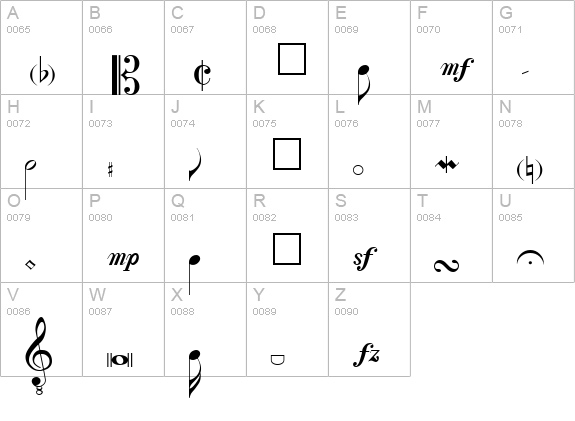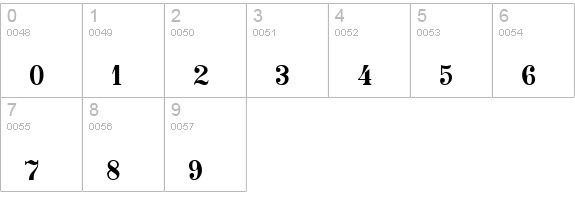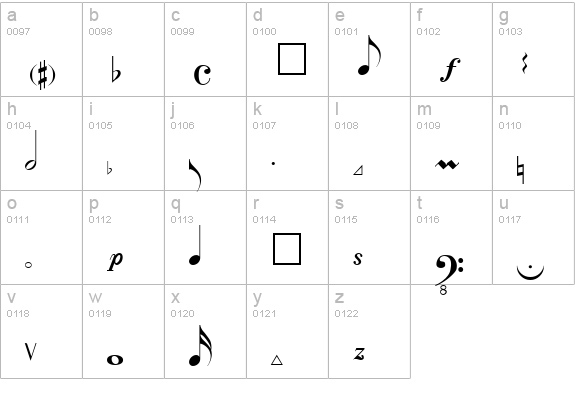
Violine Font Details
Introducing Violine font, a beautifully crafted typeface that exudes elegance and sophistication. With its delicate strokes and graceful curves, Violine is perfect for adding a touch of refinement to any project. Whether you're designing a wedding invitation, branding a high-end product, or creating a stunning logo, Violine will elevate your design to new heights. What sets Violine font apart is not only its stunning aesthetic but also its versatility. This font is suitable for a wide range of design projects, from print materials to digital graphics. Its timeless appeal ensures that your work will stand the test of time and leave a lasting impression on your audience. And the best part? Violine font is completely free to download at FontsMarket.com! That's right, you can access this exquisite typeface at no cost and use it in your personal and commercial projects with ease. Don't miss out on this opportunity to enhance your designs with the beauty and sophistication of Violine font. Download it today and let your creativity soar!